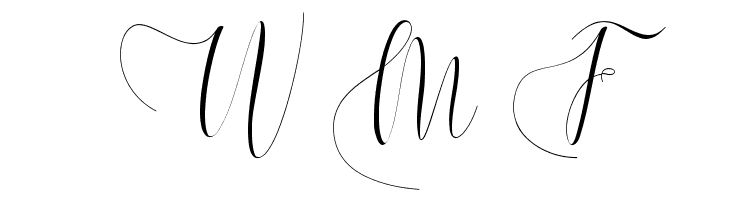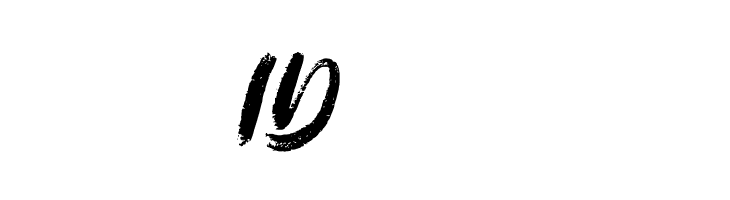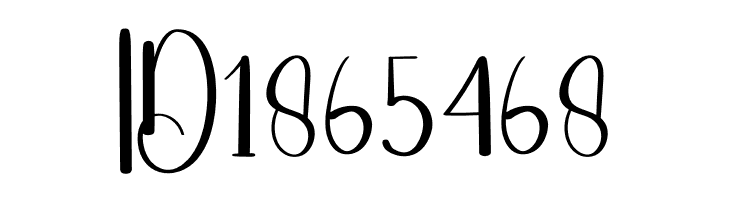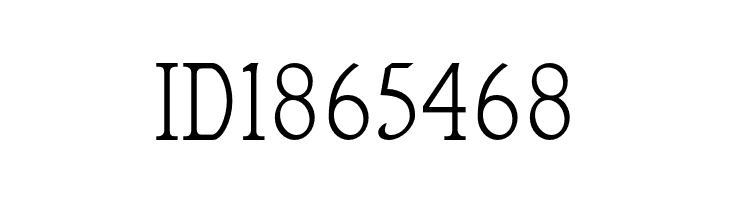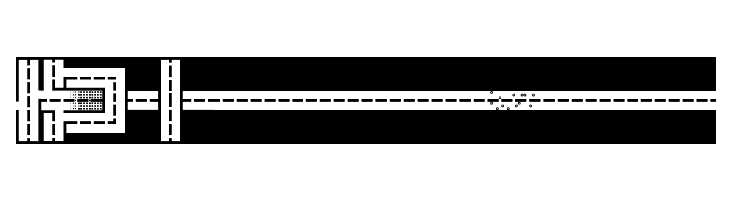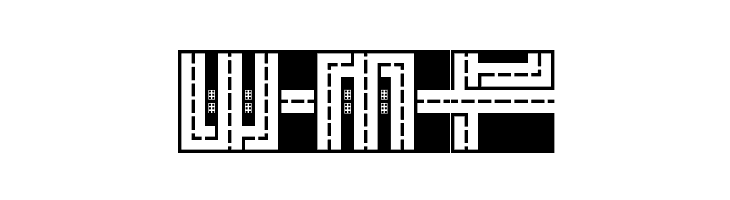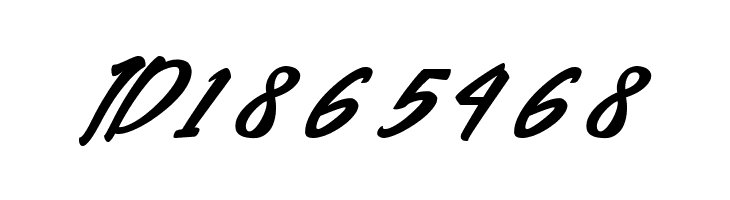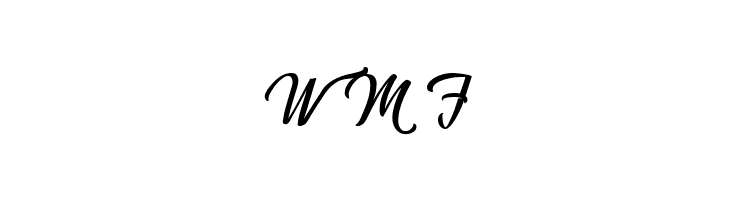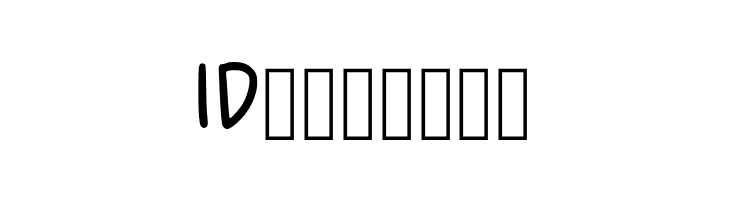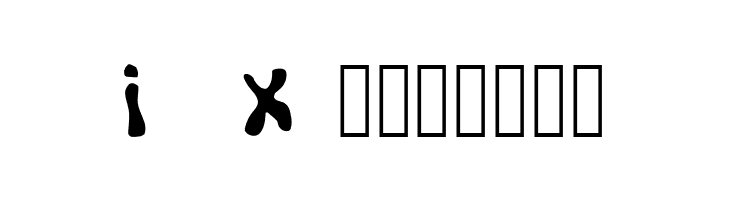
A classic serif font with a modern touch, featuring elegant and balanced proportions.
A modern serif font with clean lines and elegant curves.
A bold, fluid script font with interconnected letters and expressive strokes.
An elegant script font with flowing, cursive lines and intricate swashes.
A playful, casual handwritten font with rounded, smooth letterforms.
A bold, textured brush script font with dynamic strokes and artistic flair.
An elegant script font with flowing, interconnected letters and intricate flourishes.
Decorative script font with high contrast and flowing lines.
A playful, hand-drawn font with irregular, blob-like shapes and a whimsical style.
A geometric, maze-like font with a modern, digital aesthetic.